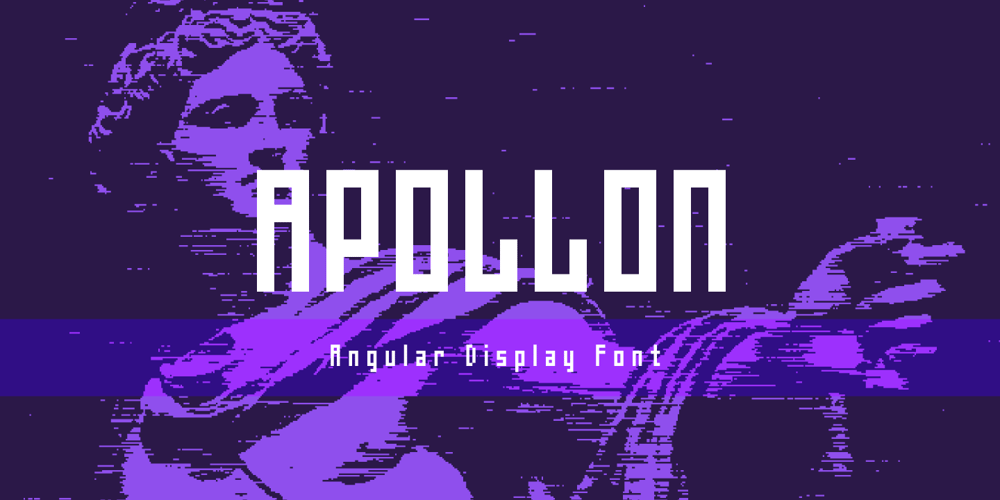
Apollon
Apollon font
Apollon Font Family was designed by Alper Çakıcı and published by Umka Type. Apollon contains 1 styles and family package options. Apollon is an angular display font. Made for social media posts and game design purposes.